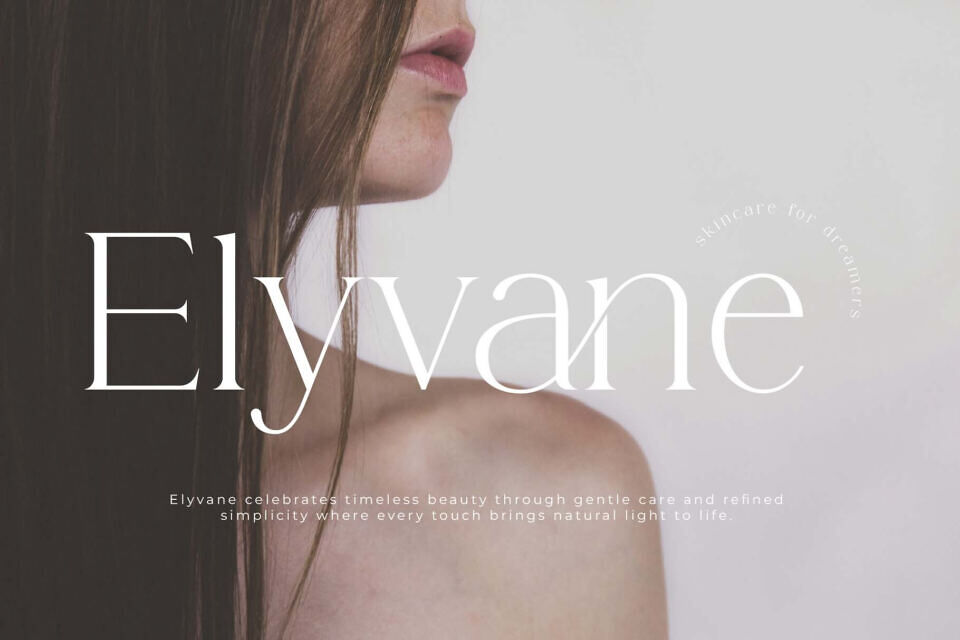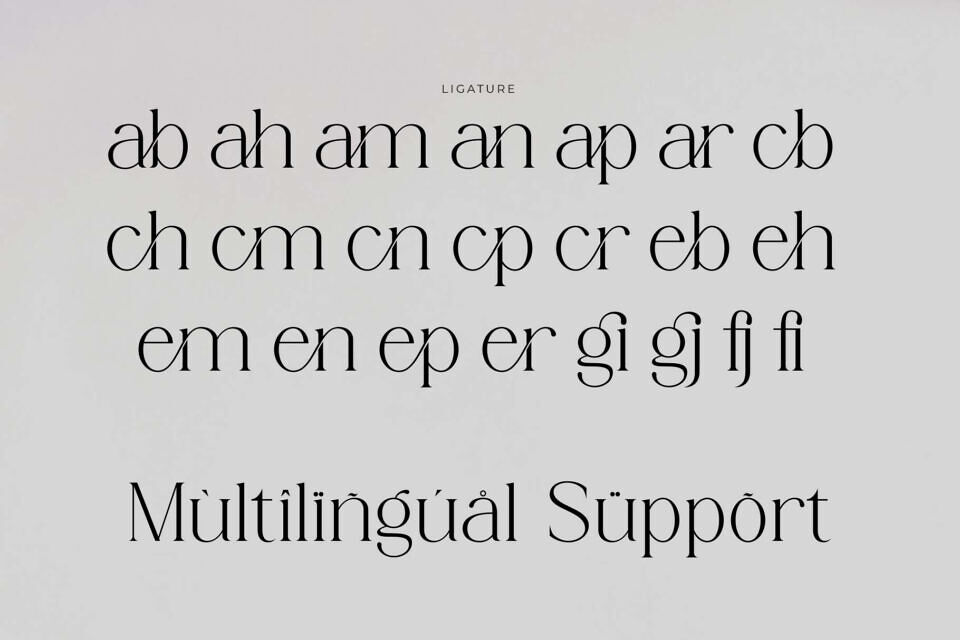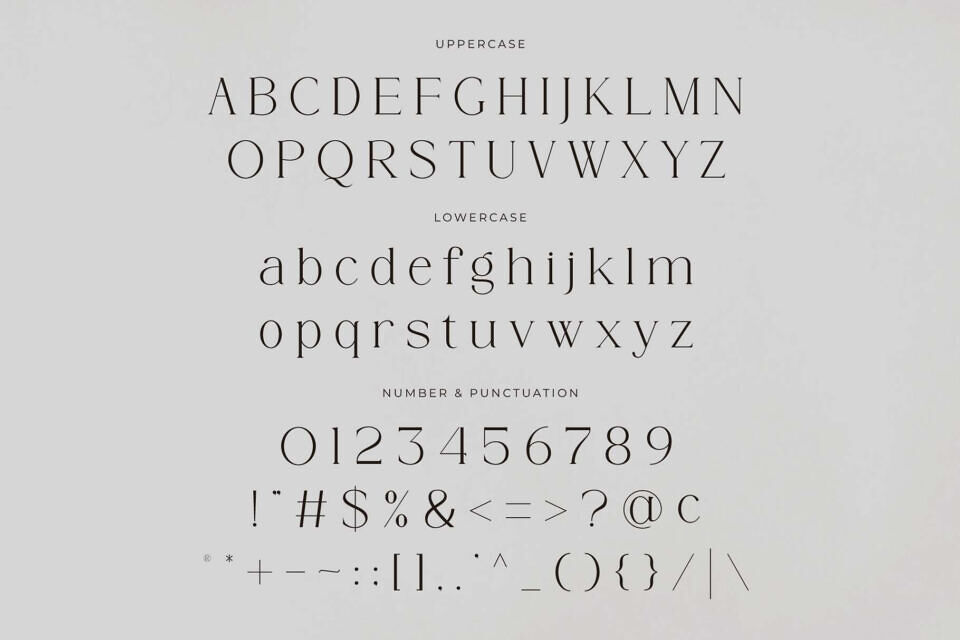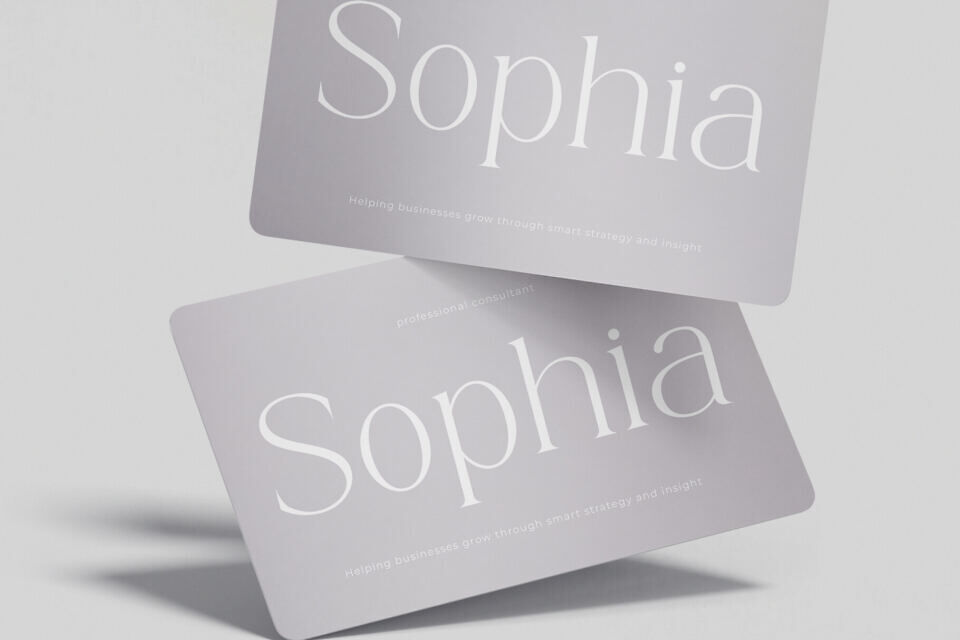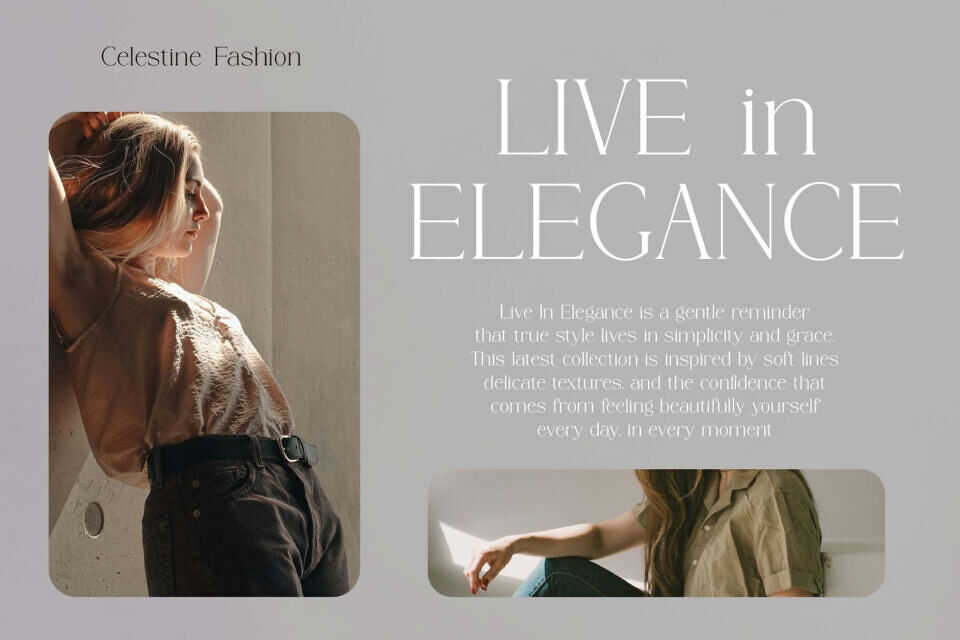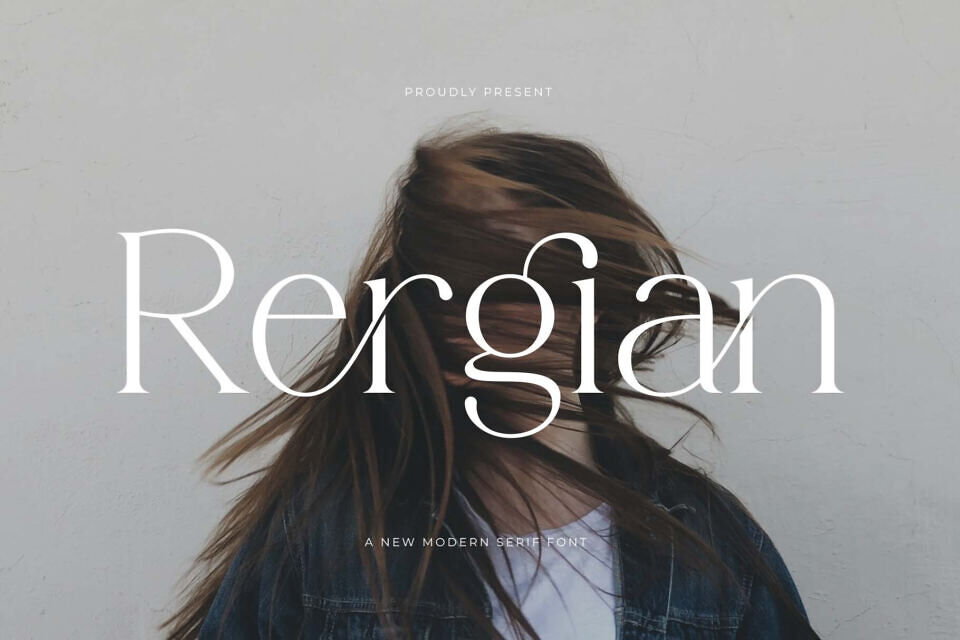
Master the art of understated elegance with Rergian, a sleek display typeface that captures a “minimalist-and-expressive” soul. This font features clean, elongated serif letterforms accented by dramatic, rhythmic swashes and custom-feel ligatures that flow seamlessly across the page.
With its balanced proportions and airy, poetic personality, Rergian is the premier choice for independent boutique branding, artisanal skincare packaging, modern wedding stationery, and high-impact “timeless-and-trendy” social media headers.